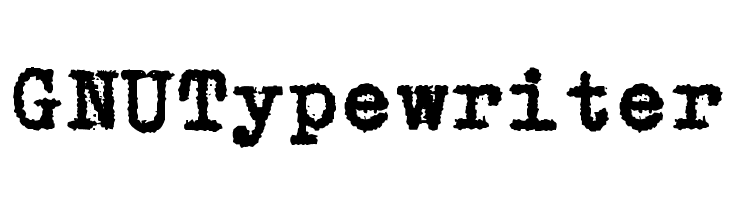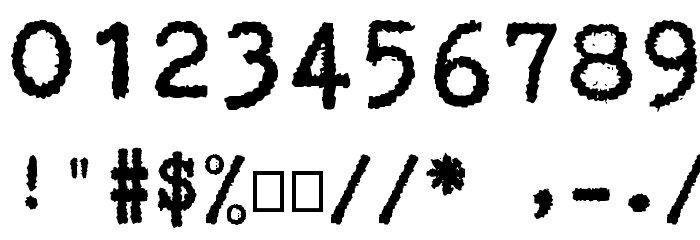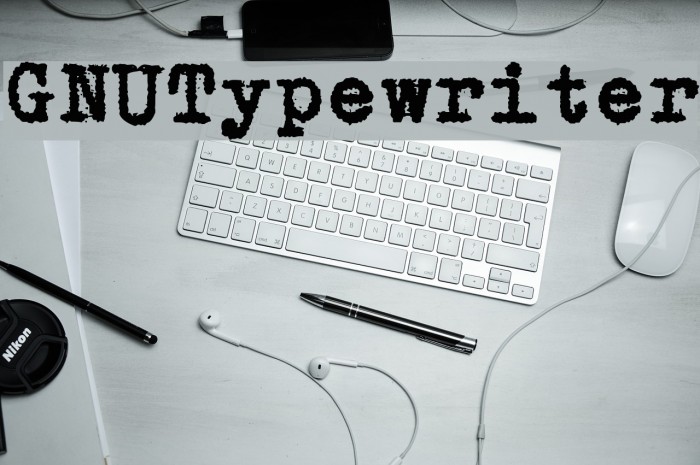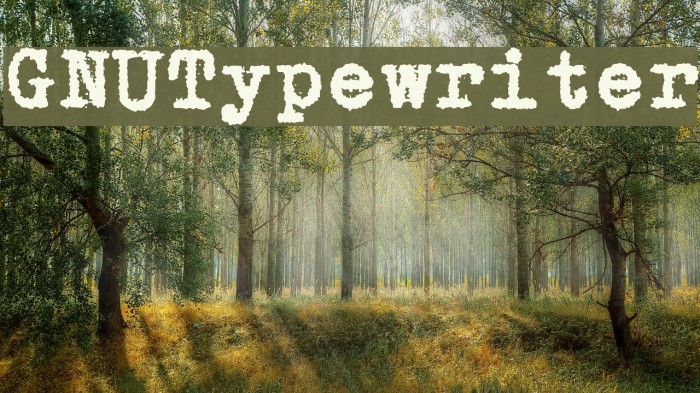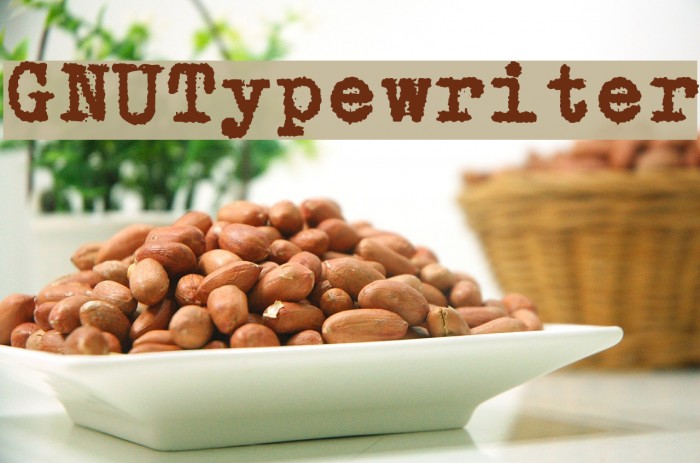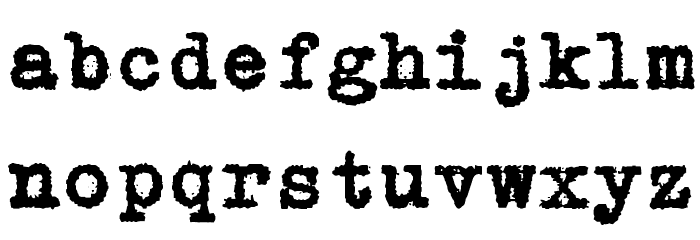
GNUTypewriter Font
GNUTypewriter Description
This typewriter-style font exudes a vintage charm with its uneven, slightly distressed appearance, reminiscent of old mechanical typewriters. The characters are bold and have a rough texture, giving them a tactile, authentic feel. The uppercase and lowercase letters maintain a consistent style, with rounded edges and a slightly irregular baseline, enhancing the retro aesthetic. Numbers and special characters follow the same design principles, ensuring uniformity across the font. The overall look is both nostalgic and functional, making it suitable for projects that aim to evoke a sense of history or authenticity.
| Overall Style | Vintage |
| Use Case | Headlines, Logos, Decorative text |
| Proposed Projects | Ideal for retro-themed designs, vintage posters, typewriter art, and projects requiring a historical or authentic touch. |